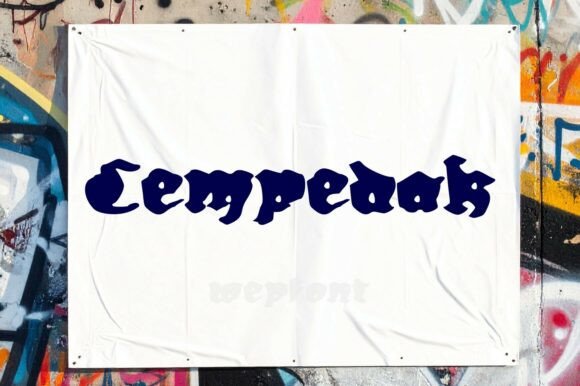
Unleash the Fearless Fusion of Past and Present with Cempedak Font
In the realm of typography, few fonts have managed to strike a balance between traditional elegance and modern urban grit. Cempedak, a bold and captivating typeface, is one such remarkable font that seamlessly bridges the gap between vintage gothic calligraphy and contemporary street attitude. This dynamic fusion of old and new makes Cempedak the perfect choice for forward-thinking designers and crafters looking to make a strong impact.
The Birth of Cempedak: A Masterful Blend of Eras
Cempedak’s unique character is born out of the marriage between delicate intricacies of vintage English script and the tenacious spirit of modern urban culture. The font’s characteristic bold strokes and trendy embellishments evoke a sense of fearlessness and unconventional style, making it an instant attention-grabber on any canvas. Whether you’re working on a branding initiative, a fashion project, or a musical endeavor, Cempedak’s distinctive flair is sure to leave a lasting impression.
Cempedak’s Domain: Where Tradition Meets Modernity
This versatile font is tailor-made for projects that demand a strong visual statement. Cempedak’s impressive repertoire includes:
- Edgy Fashion Sector: Elevate your fashion brand with Cempedak’s bold, daring aesthetic, perfect for creating striking logos, labels, and advertising materials.
- Tattoo Artistry: Unleash your artistic expression with Cempedak’s unique fusion of traditional and modern elements, ideal for designing captivating tattoos and body art.
- Adrenaline-Filled Sports Industry: Capture the essence of high-energy sports with Cempedak’s dynamic, attention-grabbing style, suitable for branding, merchandise, and promotional materials.
- Musical Styles: Make a bold statement with Cempedak’s fearless attitude, perfect for hard rock, punk, and hip-hop album covers, posters, and merchandise.
Unleash Your Creativity with Cempedak
Every single character in the Cempedak font is meticulously crafted to deliver a powerful visual punch. With Cempedak, you can:
- Design exceptional logos that demand attention
- Create powerful clothing prints that make a statement
- Craft arresting album covers that capture the essence of your music
- Write compelling headlines that leave a lasting impression
The Cempedak Advantage: Why Choose This Font?
Cempedak’s unique selling proposition lies in its ability to seamlessly blend traditional elegance with modern urban grit. This font offers:
- Unparalleled Versatility: Suitable for a wide range of projects, from fashion and sports to music and art.
- Fearless Attitude: Cempedak’s bold style is sure to make a statement and leave a lasting impression.
- Masterful Craftsmanship: Every character is meticulously designed to deliver a powerful visual punch.
Cempedak font is a game-changer for designers and crafters looking to push the boundaries of creativity. With its masterful blend of traditional gothic calligraphy and contemporary urban attitude, Cempedak is poised to make a lasting impact in the world of typography. Whether you’re working on a branding initiative, a fashion project, or a musical endeavor, Cempedak is the perfect choice for those who dare to be different. Unleash your creativity with Cempedak and make a statement that demands attention.